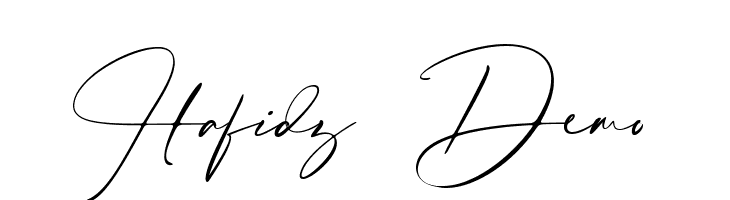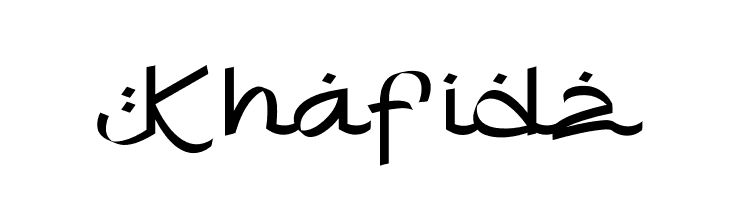
An elegant cursive script font with flowing, intricate strokes.
A modern decorative font with cursive-like strokes and playful diacritical marks.
A bold, jagged font with a dynamic and energetic style.
An elegant, cursive script font with flowing, connected letters and high contrast strokes.
Playful handwritten font ideal for kids' content.
A distressed, decorative font with vintage flourishes.